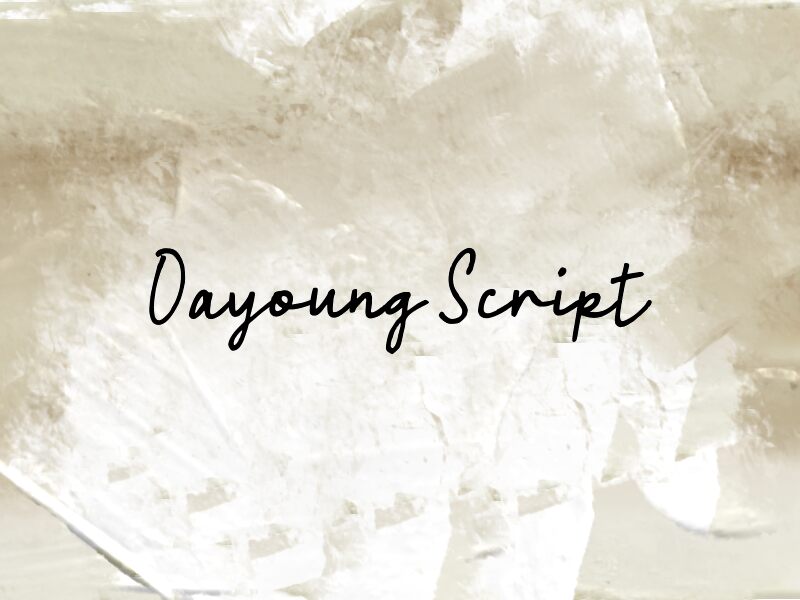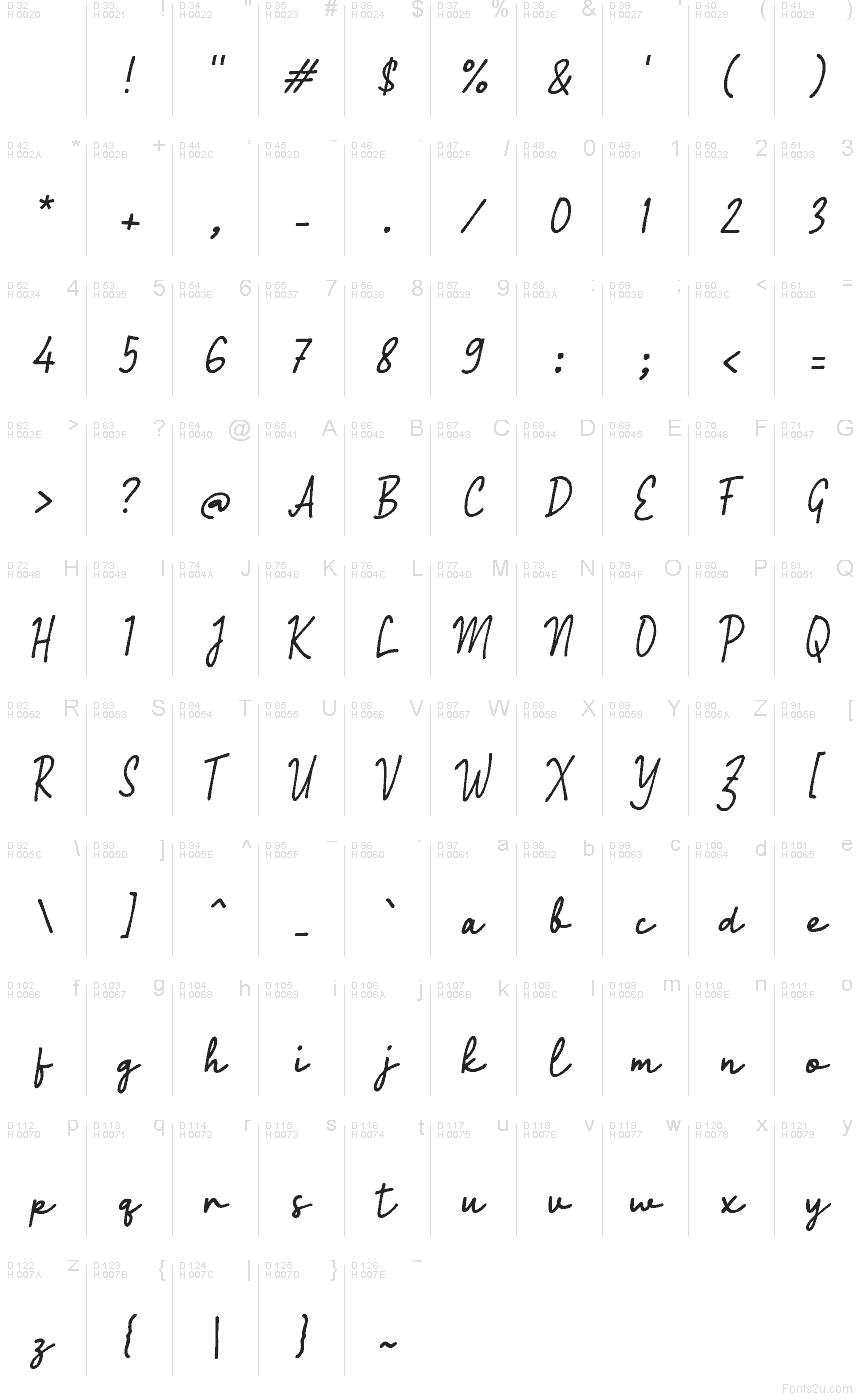
Oayoung Script
Oayoung Script font by wep is a free handwritten font that captures the feel of a quick, confident note jotted with a fine-tip pen. Its smooth, slightly tilted strokes and subtle inky texture give it warmth, while the open forms keep it surprisingly easy to read, even at smaller sizes. It’s relaxed without getting messy, making it a strong choice when you want handwriting that feels genuine but still professional.
Using Oayoung Script, you can bring a human touch to social media graphics, lifestyle logos, product packaging, photo captions, greeting cards, and quote posts. The gentle rhythm between the letters creates a natural flow that looks great on both light and textured backgrounds. For a balanced layout, pair this free font with a clean geometric sans typeface for body text and supporting details.